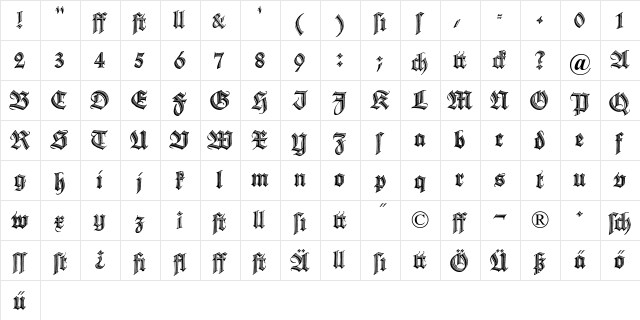
Deutsche Zierschrift Regular
| Designer | Dieter Steffmann |
Design Context for Deutsche Zierschrift Typeface
Deutsche Zierschrift is a composed and adaptable typeface that performs quietly and consistently across a wide range of design contexts.